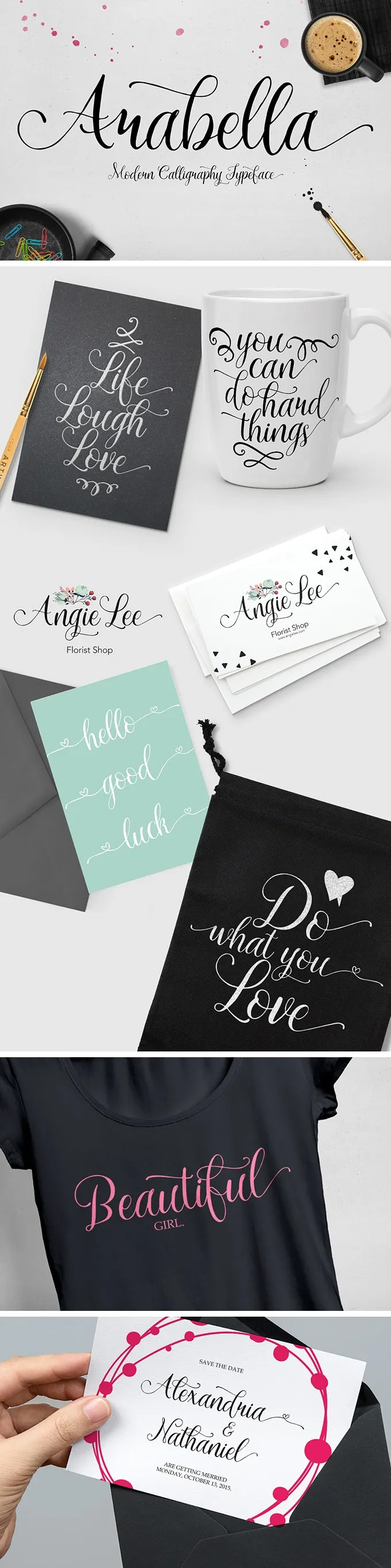
Arabella Free Font
What can be better than a lovely hand-made script font that would become an excellent addition to your professional toolbox? Exactly! That's why we're so excited to bring you Arabella.
If you managed to make up a few things, you're not such a hopeless freebie-junkie as we are. Anyhow, we're so excited to bring you Arabella, a font perfect for various purposes: headings, signatures, logos, wedding invitations, t-shirts, labels, posters, badges, etc. This is a phenomenal script, magnetizing with its aesthetics!